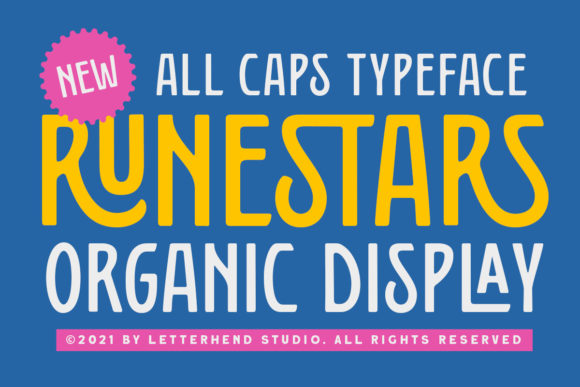
Unleash the captivating allure of Runestars Font, an awe-inspiring sans serif masterpiece crafted by the ingenious minds at letterhend. This font is not merely a collection of characters; it's an artistic symphony, a visual dance that will transform your designs into breathtaking works of art.
Immerse yourself in the world of Runestars, where organic forms meet unique characters and ligatures, creating a visual symphony that dances across your screens. This font was meticulously designed to elevate your logos, invitations, labels, magazines, books, greeting cards, packaging, fashion, make-up, stationery, and any product yearning for a touch of elegance and distinction.
With Runestars, you'll discover a font that transcends the mundane, a font that captivates and enchants, leaving an indelible mark on the hearts and minds of your audience. Its ability to seamlessly blend into any design aesthetic makes it the perfect choice for a plethora of projects, ensuring that your creative vision is brought to life with unparalleled beauty and sophistication.
Picture the allure of a logo that radiates personality, the charm of an invitation that exudes elegance, the allure of a label that speaks volumes, the sophistication of a magazine that captivates, the timeless beauty of a book that enchants, the warmth of a greeting card that touches hearts, the allure of packaging that demands attention, the vibrancy of fashion that commands presence, the artistry of make-up that mesmerizes, the elegance of stationery that impresses, and the sheer brilliance of any product adorned with the magic of Runestars.
Welcome to the realm of Runestars, where your designs will flourish, where your creativity will know no bounds, and where your projects will achieve an unparalleled level of visual brilliance. Embrace the power of this font, and let it transform your work into a masterpiece, a timeless creation that will leave your audience spellbound.